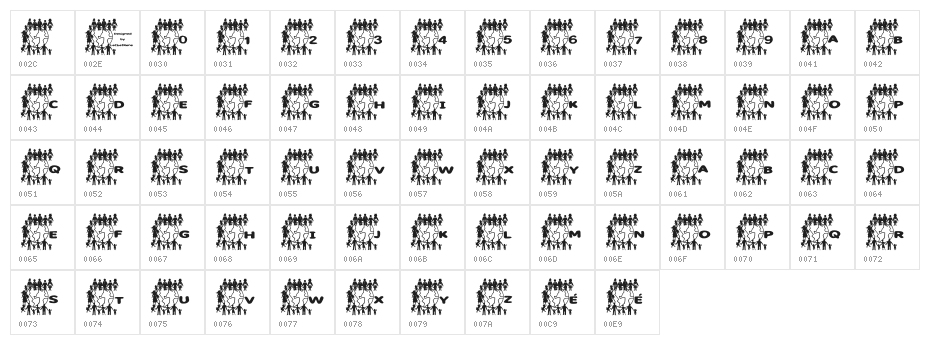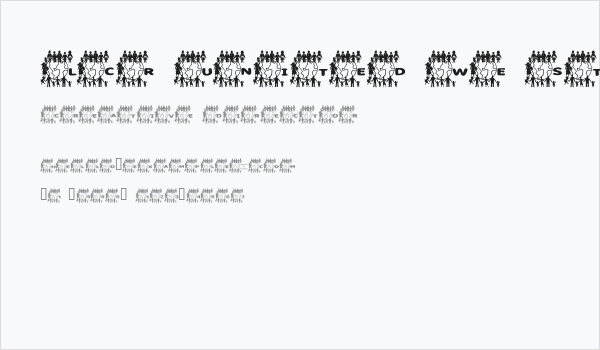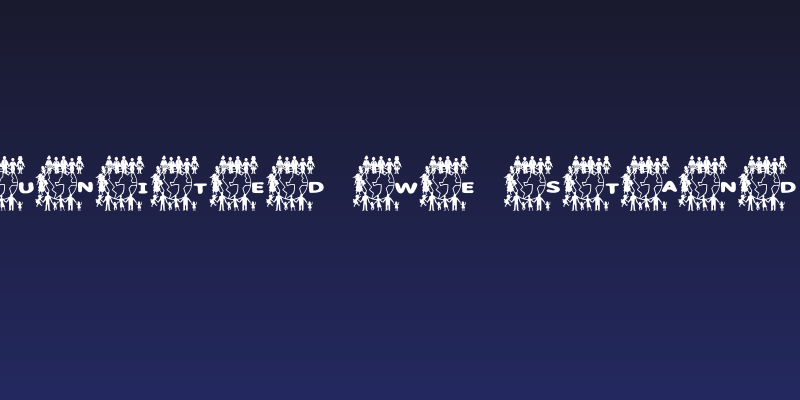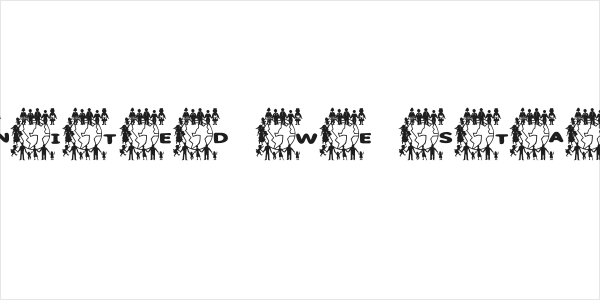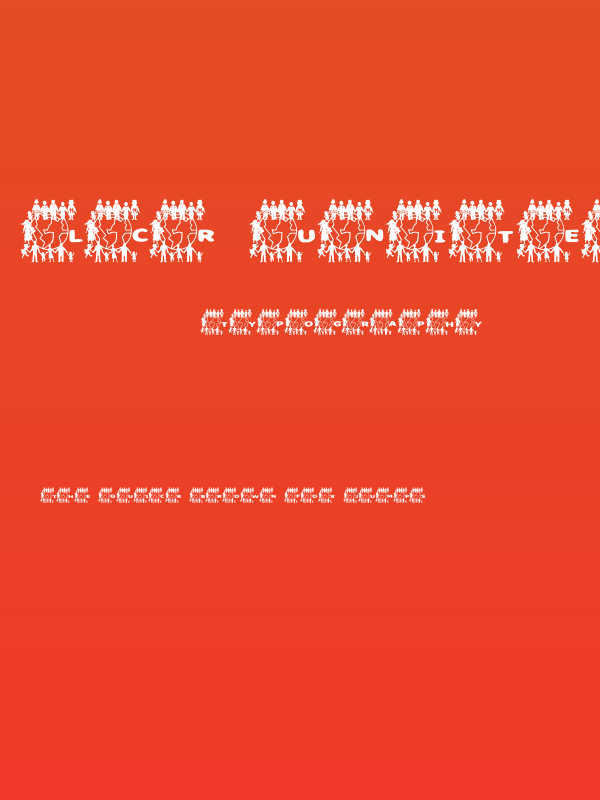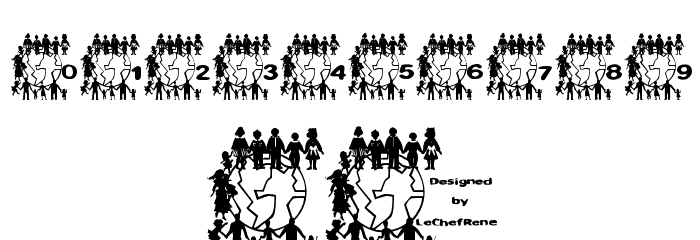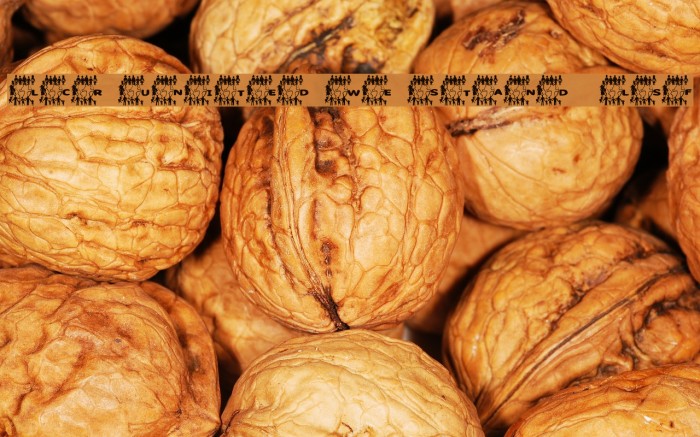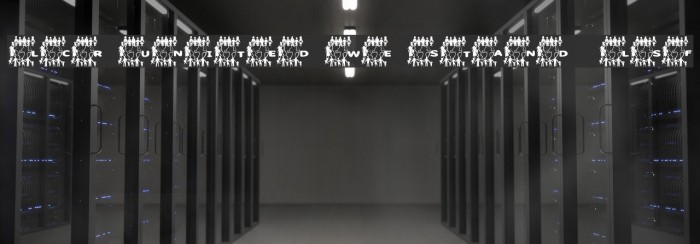
LCR United We Stand LSF Font
LCR United We Stand LSF Description
This font features a unique and creative design where each character is formed by silhouettes of people standing together, symbolizing unity and collaboration. The characters are bold and highly decorative, making them stand out with a strong visual impact. The design incorporates a playful and artistic style, with each letter and number surrounded by figures that add a sense of community and togetherness. This font is ideal for projects that aim to convey messages of solidarity, teamwork, and inclusivity. The overall appearance is both modern and artistic, with a distinct emphasis on human connection.
| Overall Style | Modern, Artistic |
| Use Case | Headlines, Posters, Logos |
| Proposed Projects | Ideal for community event posters, social campaigns, and educational materials promoting teamwork. |